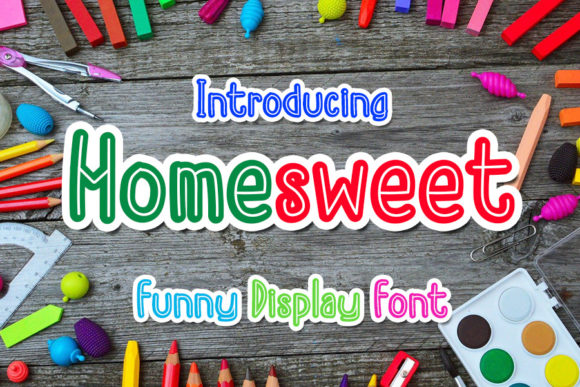
Journey into the realm of Homesweet Font, a display font family that captures the essence of joy and lightheartedness. This delightful creation by Mr. Soon Design exudes a playful charm that will breathe life into your designs.
Homesweet Font is not just a collection of letters; it's a gateway to a world of fun and whimsy. Its neat, simple, and jolly strokes dance across the page, inviting you to embrace your creativity. Each character is a testament to the power of simplicity, crafted with meticulous attention to detail to ensure a flawless visual experience.
With Homesweet Font, you can effortlessly add a touch of cheer to your designs. Its playful personality shines through, whether you're creating logos, posters, branding materials, or any project that demands a dash of lightheartedness. Homesweet Font's versatility knows no bounds, allowing you to explore a myriad of design possibilities.
Imagine your logo adorned with the Homesweet Font, its quirky charm captivating the attention of your audience. Picture your posters bursting with color and personality, thanks to the font's ability to communicate joy and laughter. Envision your branding materials radiating warmth and approachability, leaving a lasting impression on your customers.
Homesweet Font is more than just a font; it's an invitation to embark on a creative adventure. Its whimsical nature encourages you to think outside the box and explore new design horizons. Let your imagination soar as you discover the endless possibilities that await you with this captivating font family.
So, why settle for ordinary when you can embrace the extraordinary? Dive into the world of Homesweet Font today and unlock a world of design magic. Experience the joy of creating with a font that speaks to your heart and ignites your imagination. With Homesweet Font, the possibilities are endless, and the journey is sure to be filled with laughter, creativity, and pure delight.